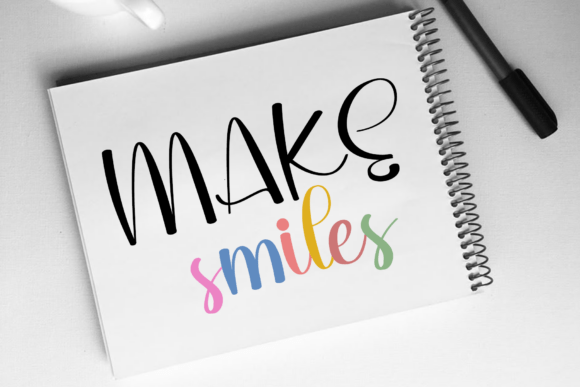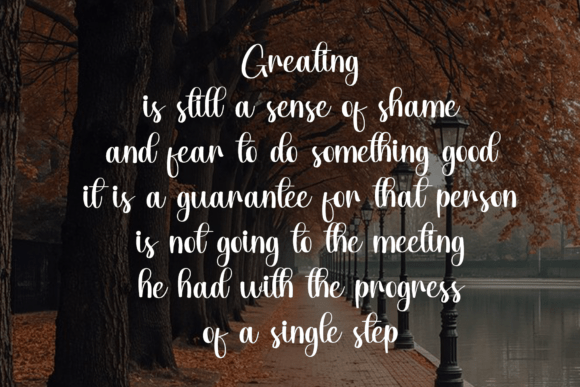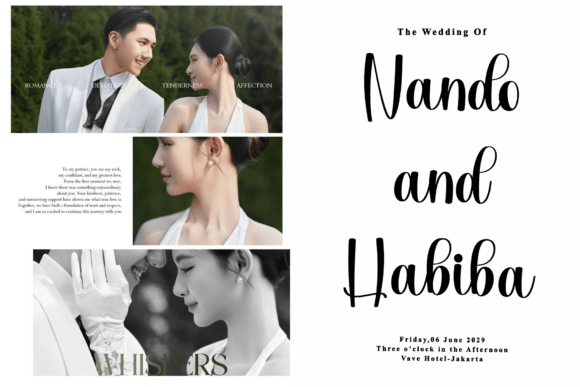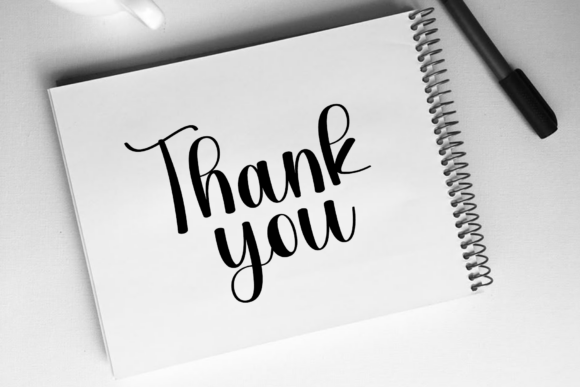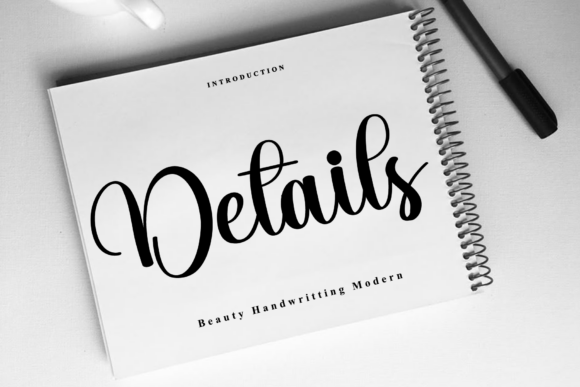
Introducing Details Font: A Timeless Handwritten Masterpiece
Are you on the hunt for a font that can elevate your designs and make them truly unforgettable? Look no further than Details Font, a lovely and timeless handwritten font that is sure to capture the hearts of designers and crafters alike. With its unique and beautiful touch, Details Font is the perfect choice for creating eye-catching logos, branding, and quotes that will leave a lasting impression.
Handwritten fonts have a way of adding a personal touch to any design. They evoke a sense of warmth, elegance, and sophistication that is hard to replicate with other font styles. Details Font is a shining example of a well-crafted handwritten font, with each letter carefully designed to showcase its own unique character and charm.
What Makes Details Font Special?
So, what sets Details Font apart from other fonts in its class? Here are just a few of its standout features:
- Unique and Beautiful Touch: Every letter in Details Font has been carefully crafted to have its own distinct personality, making it perfect for designs that require a personal touch.
- Timeless Appeal: Unlike trendy fonts that quickly go out of style, Details Font has a timeless quality that ensures it will remain relevant for years to come.
- Elegant and Sophisticated: Details Font exudes elegance and sophistication, making it perfect for high-end branding, logos, and quotes.
- Versatile: Whether you’re designing a logo, brochure, or social media graphic, Details Font is versatile enough to adapt to any design style or format.
Details Font is a dream come true for designers and crafters who want to add a personal touch to their work. Here are just a few ways you can use Details Font to elevate your designs:
- Logo Design: Create a memorable and eye-catching logo that showcases your brand’s personality with Details Font.
- Branding: Use Details Font to create a consistent visual identity across all your branding materials, from business cards to letterheads.
- Quotes and Typography: Add a touch of elegance and sophistication to your quotes and typography with Details Font.
- Stationery and Invitations: Create beautiful stationery and invitations that will make your recipients feel special.
Tips for Using Details Font
Here are a few tips to help you get the most out of Details Font:
- Pair it with Other Fonts: Experiment with pairing Details Font with other fonts to create a unique and visually appealing design.
- Play with Colors: Details Font looks great in a variety of colors, so don’t be afraid to experiment and find the perfect hue for your design.
- Use it Sparingly: While Details Font is beautiful, it can be overwhelming if used too much. Use it sparingly to create a focal point in your design.
Details Font is a truly special font that is sure to become a favorite among designers and crafters. With its unique and beautiful touch, timeless appeal, and versatility, it’s the perfect choice for creating eye-catching logos, branding, and quotes. Whether you’re a seasoned designer or just starting out, Details Font is a must-have in your font collection.